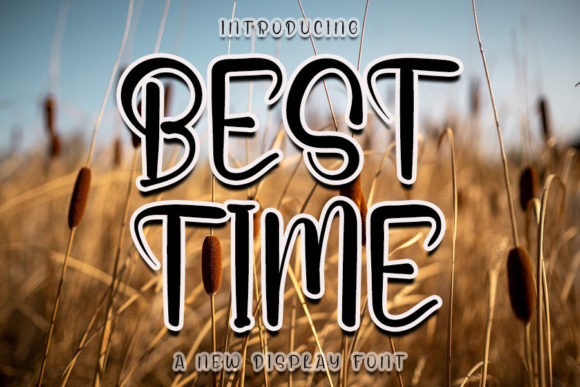
The Quest for the Perfect Font: Discovering Best Time
Ah, the eternal struggle of finding the perfect font for your design project. I still remember the time I was working on a branding project for a trendy coffee shop, and I just couldn’t seem to find a font that captured the right balance of playfulness and sophistication. The client wanted something that would appeal to a young audience, but still convey a sense of elegance and refinement. That’s when I stumbled upon Best Time, a playful and smart display font that has since become a staple in my design toolkit.
What Makes Best Time So Special?
Best Time is a display font that draws inspiration from timeless calligraphy, with an impeccable form that’s both balanced and varied. Its unique blend of classic and modern elements makes it perfect for designers, crafters, and creative hobbyists looking to add a touch of personality to their projects.
An Honest Review of Best Time
- ✨ Unique and eye-catching design: Best Time’s playful and smart design makes it perfect for headlines, titles, and other display text.
- ✅ Highly versatile: This font can be used for a wide range of projects, from branding and advertising to packaging and signage.
- 💡 Easy to read: Despite its playful nature, Best Time remains highly legible, even at smaller sizes.
The Not-So-Good Stuff
- 🤔 Limited use for body text: While Best Time is perfect for display text, it may not be the best choice for longer blocks of body text.
- ⚠️ Some kerning issues: As with any font, there may be some kerning issues, particularly when using certain character combinations.
- Take advantage of Best Time’s OpenType features, such as glyphs and stylistic alternates, to add more personality to your text.
One of the standout features of Best Time is its range of OpenType features and glyphs. These allow you to customize your text and add more personality to your designs. Some of the features you can expect to find include:
- Stylistic alternates: These allow you to switch between different font styles, such as italic or bold.
- Glyphs: These are special characters that can be used to add more visual interest to your text.
The Backstory Behind Best Time
Best Time was designed by a team of typographers who wanted to create a font that was both playful and sophisticated. Inspired by the timeless elegance of calligraphy, they set out to create a font that would be perfect for designers, crafters, and creative hobbyists. With its unique blend of classic and modern elements, Best Time is a font that’s sure to make a statement.
Q: What is the best use for Best Time?
A: Best Time is perfect for display text, such as headlines, titles, and other attention-grabbing elements.
Q: Is Best Time suitable for body text?
A: While Best Time is highly legible, it may not be the best choice for longer blocks of body text. Instead, consider using a font that’s specifically designed for reading.
Q: Is Best Time available in different languages?
A: Yes, Best Time supports a wide range of languages, including English, Spanish, French, and many others.